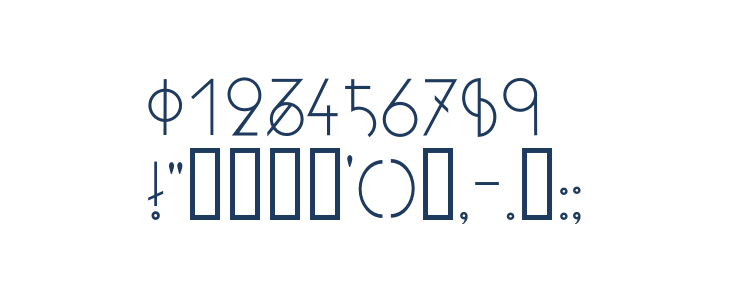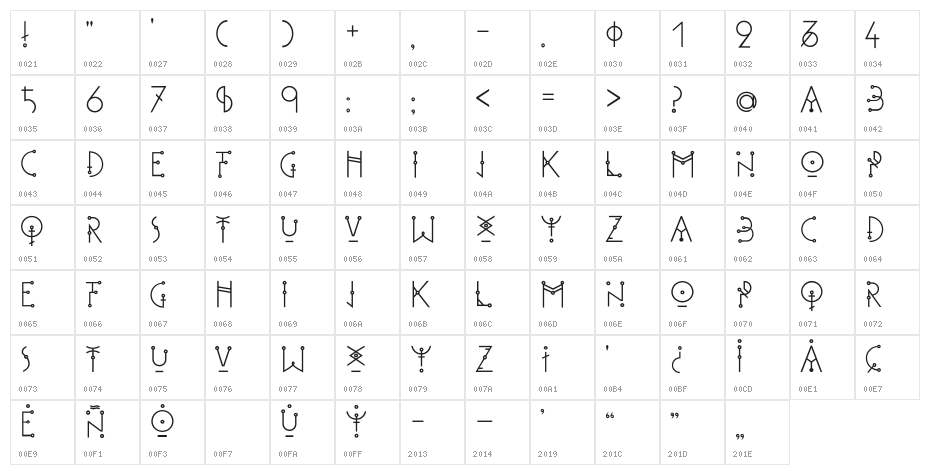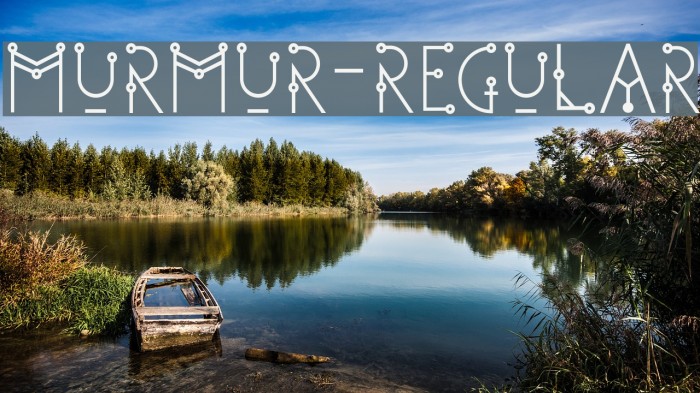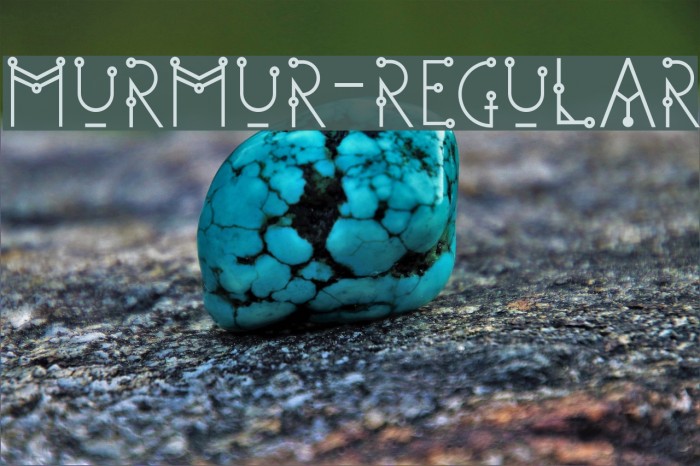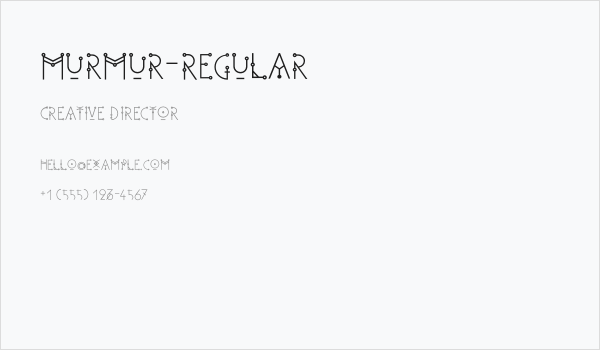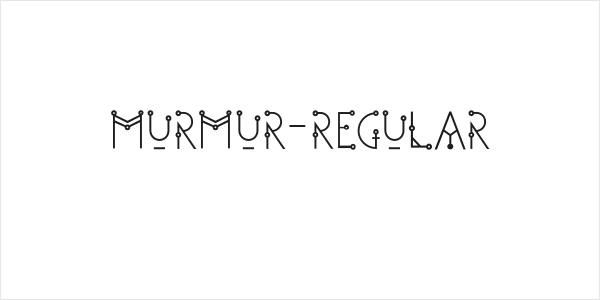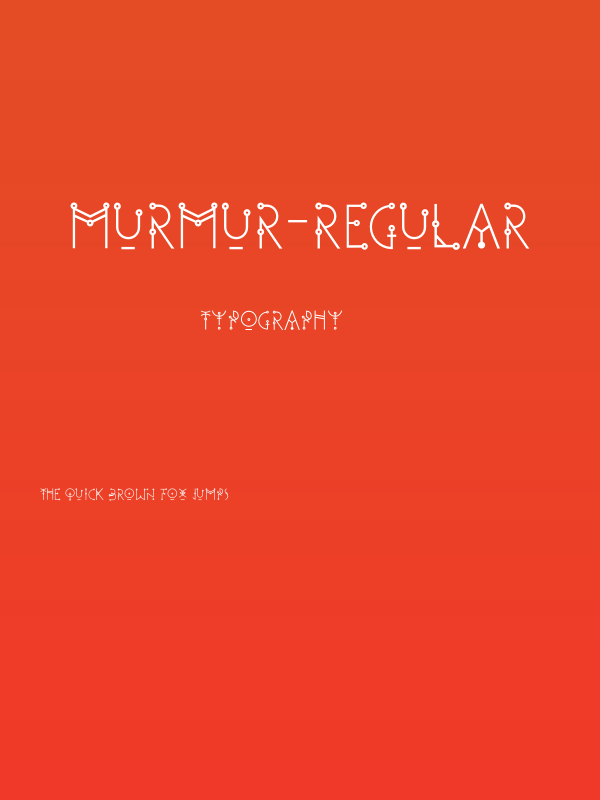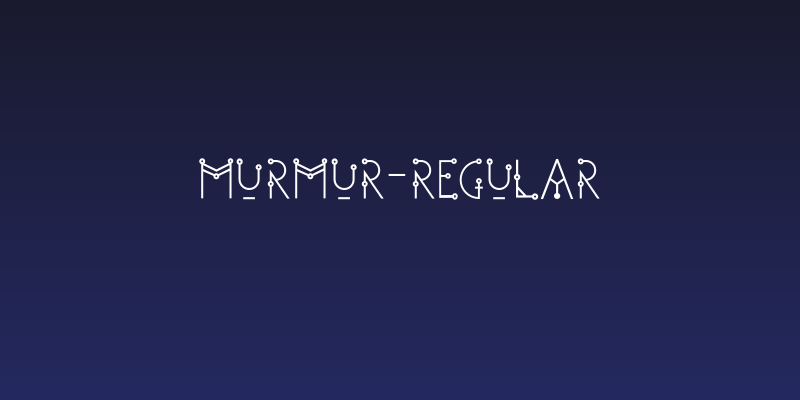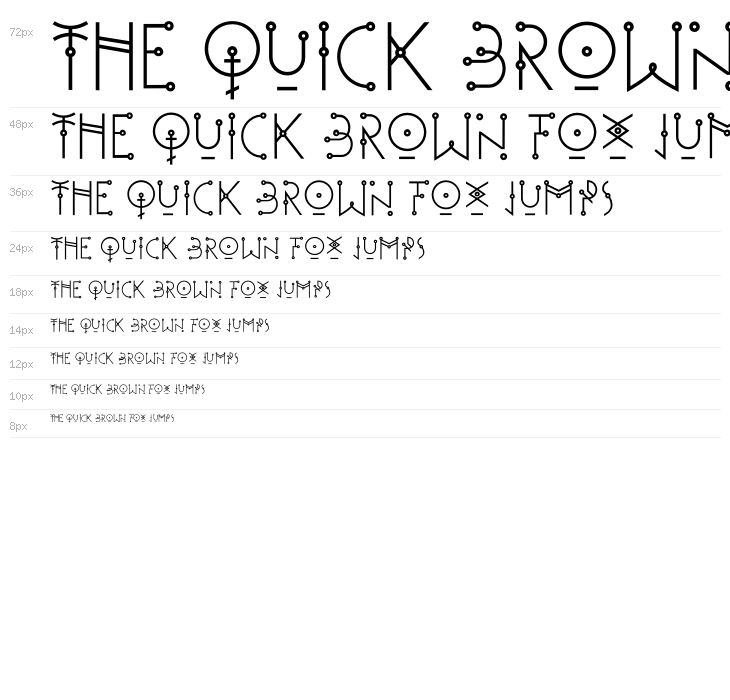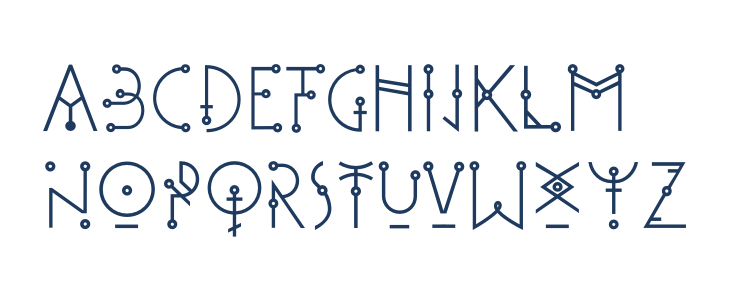
Murmur-Regular Font
Murmur-Regular Description
This font features a unique and decorative style, characterized by geometric shapes and lines with circular accents. Each letter is distinct, with a futuristic and abstract appearance, incorporating dots and lines that create a sense of connectivity and flow. The uppercase and lowercase letters maintain a consistent design theme, while the numerals and special characters follow suit with similar geometric patterns. The overall design is both artistic and modern, making it suitable for creative and innovative projects.
| Overall Style | Futuristic, Abstract |
| Use Case | Logos, Posters, Creative Designs |
| Proposed Projects | Ideal for sci-fi themed designs, modern art projects, innovative branding, and creative posters. |